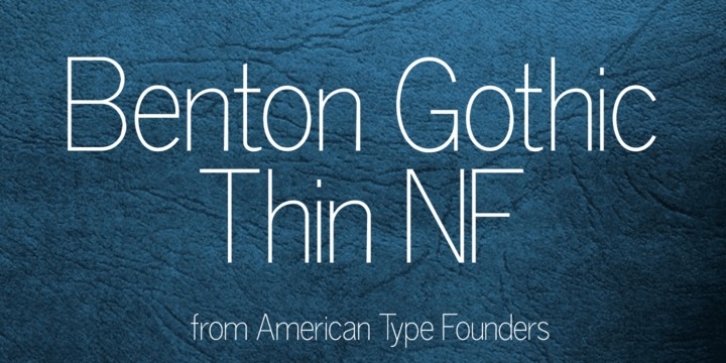
This typeface takes its inspiration from Lightline Gothic, designed by Morris Fuller Benton for ATF in 1908. This version is even lighter, making it suitable for headlines. Both versions of this font support the Latin 1262, Central European 1250, Turkish 1254 and Baltic 1257 codepages.